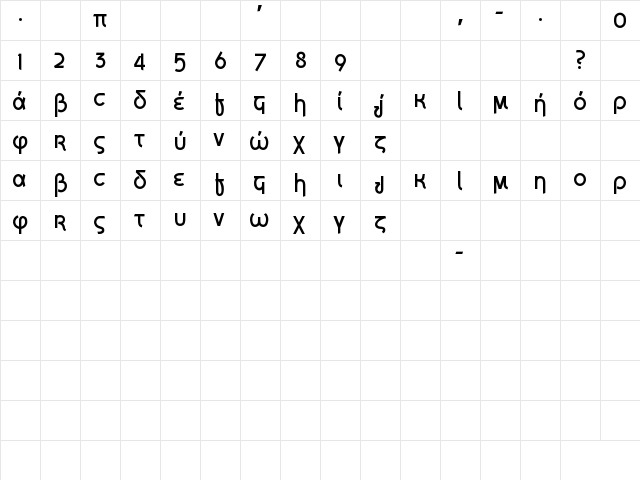
Grecian Formula Regular
Design Context for Grecian Formula Typeface
Grecian Formula is a composed and adaptable typeface that performs quietly and consistently across a wide range of design contexts.